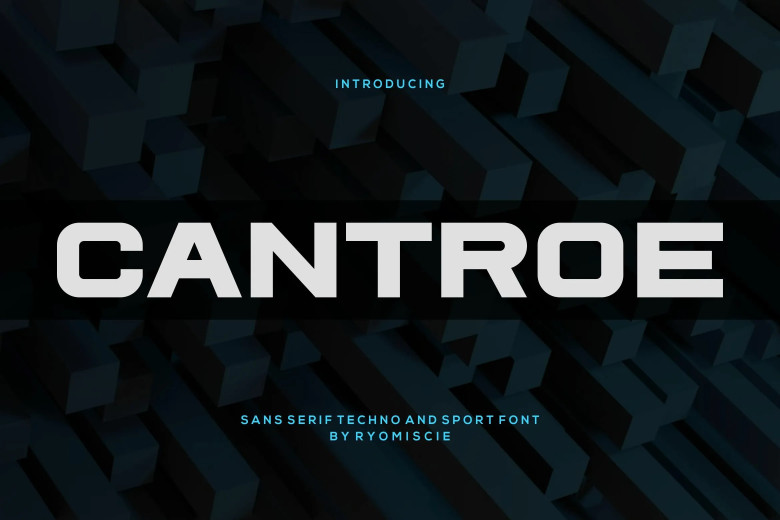
Cantroe Font
Cantroe is a Modern Font, This is a bold and authentic display font. The font is suitable for any branding project like Logo, t-shirt printing, esports and many more. Excellent in a wide range of contexts.
Cantroe Sans Serif Font